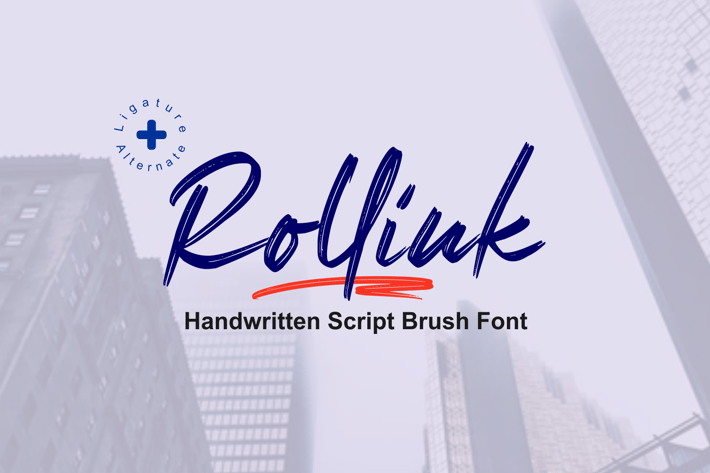
Rollink - a simple brush font
Rollink is a simple brush font that is very comfortable to read. It will elevate various design projects to the highest level, be it branding, headings, hands, logos, labels, wedding designs, invitations, signs and more!
uppercase and lowercase
multi language
alternate
ligature
* swash